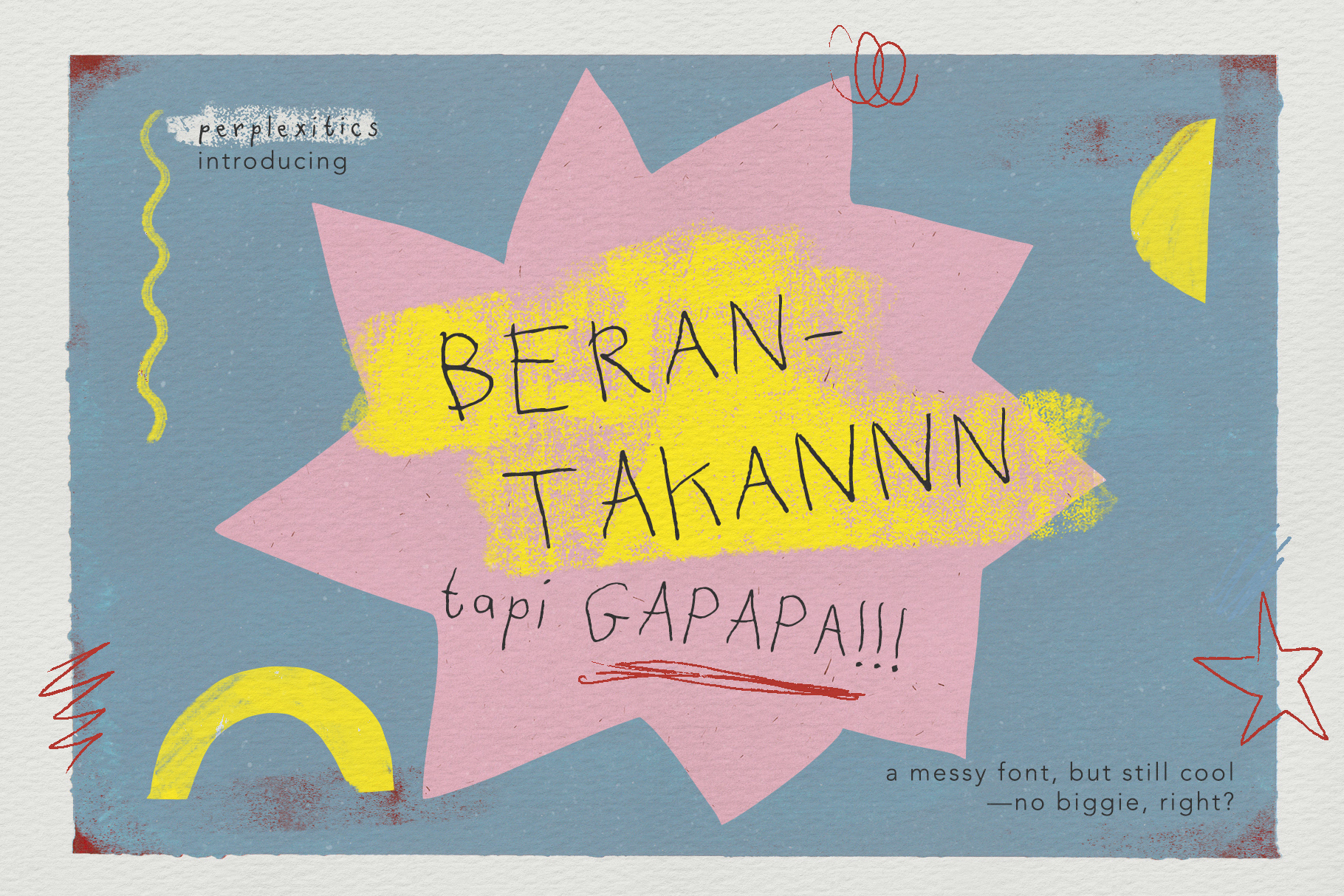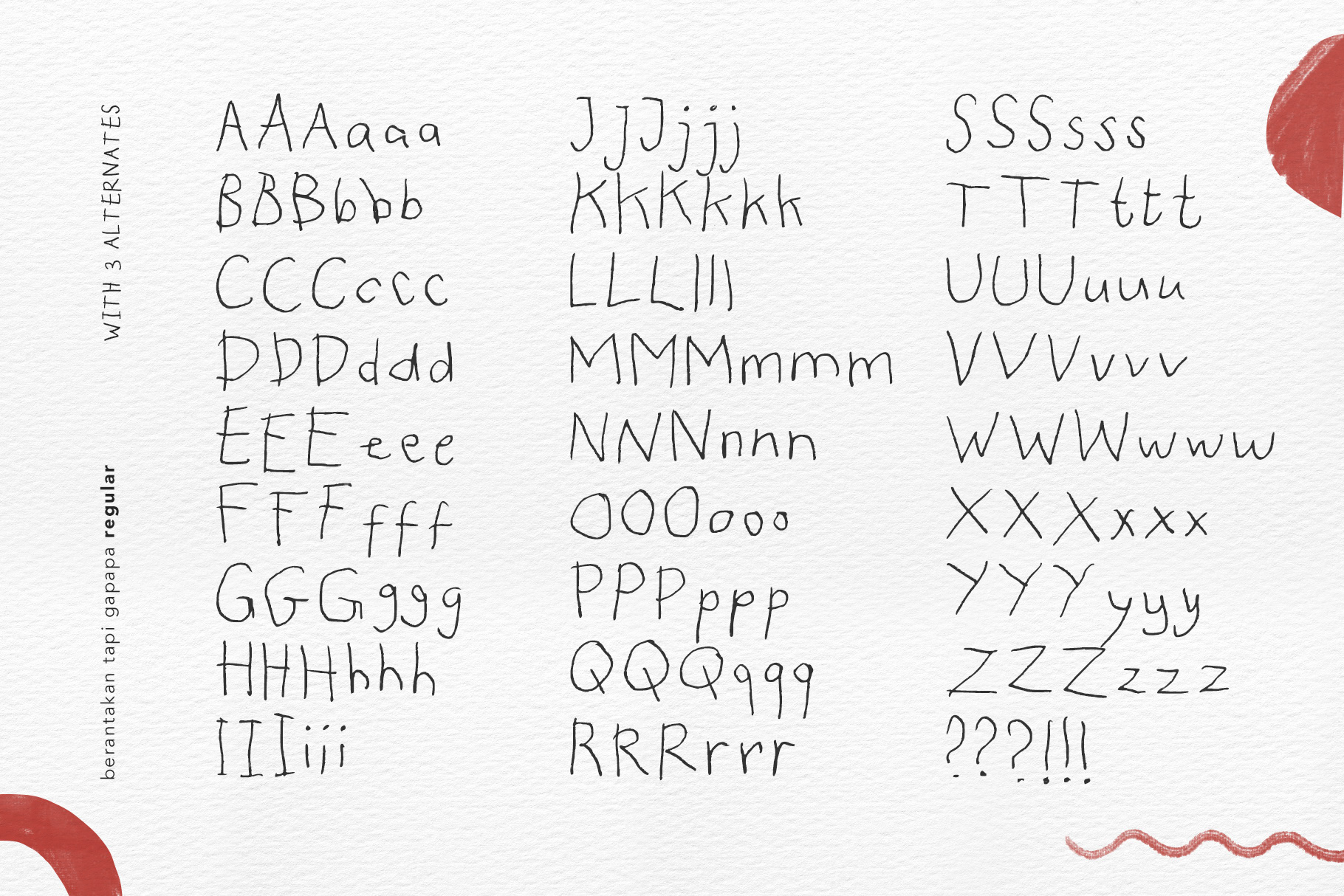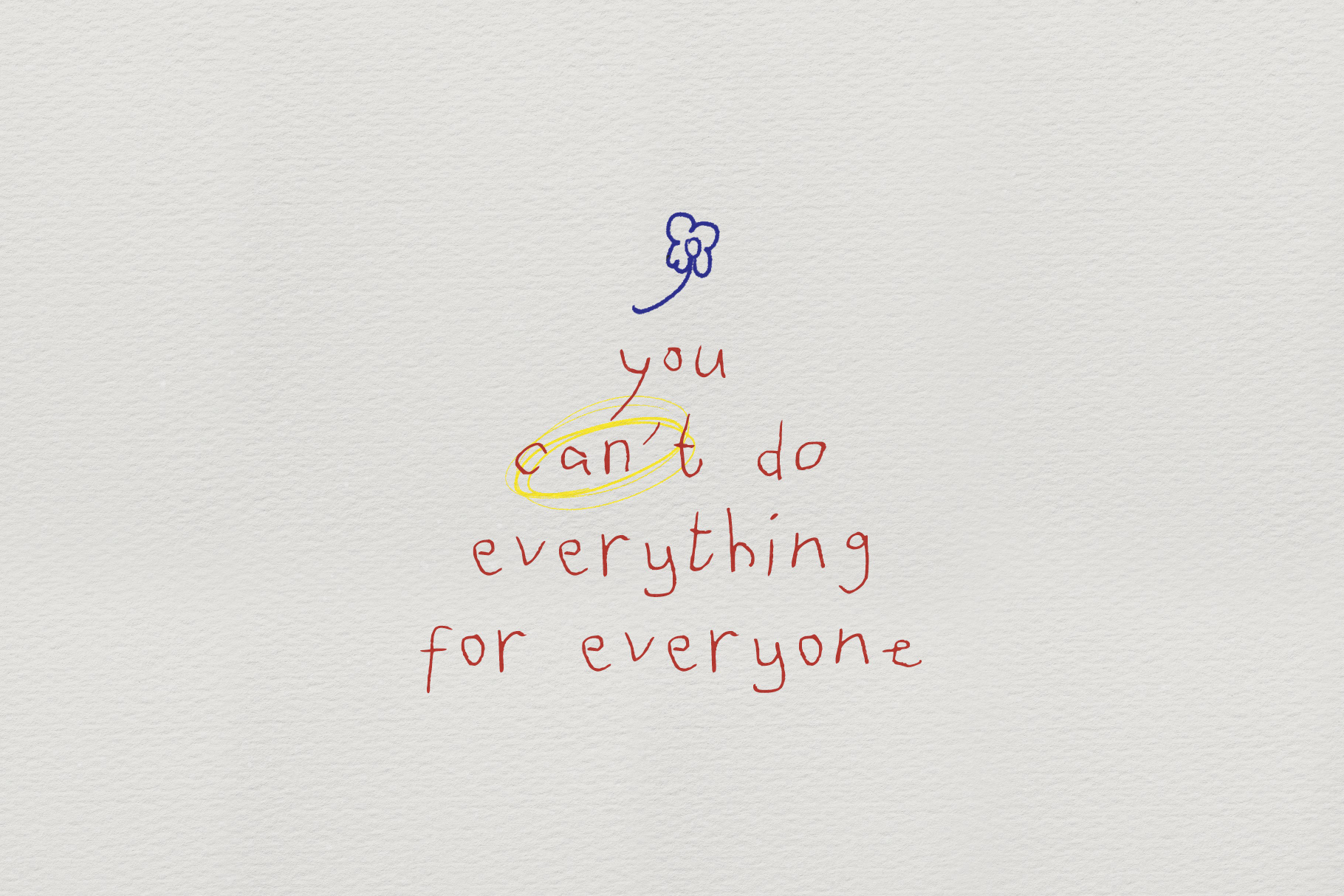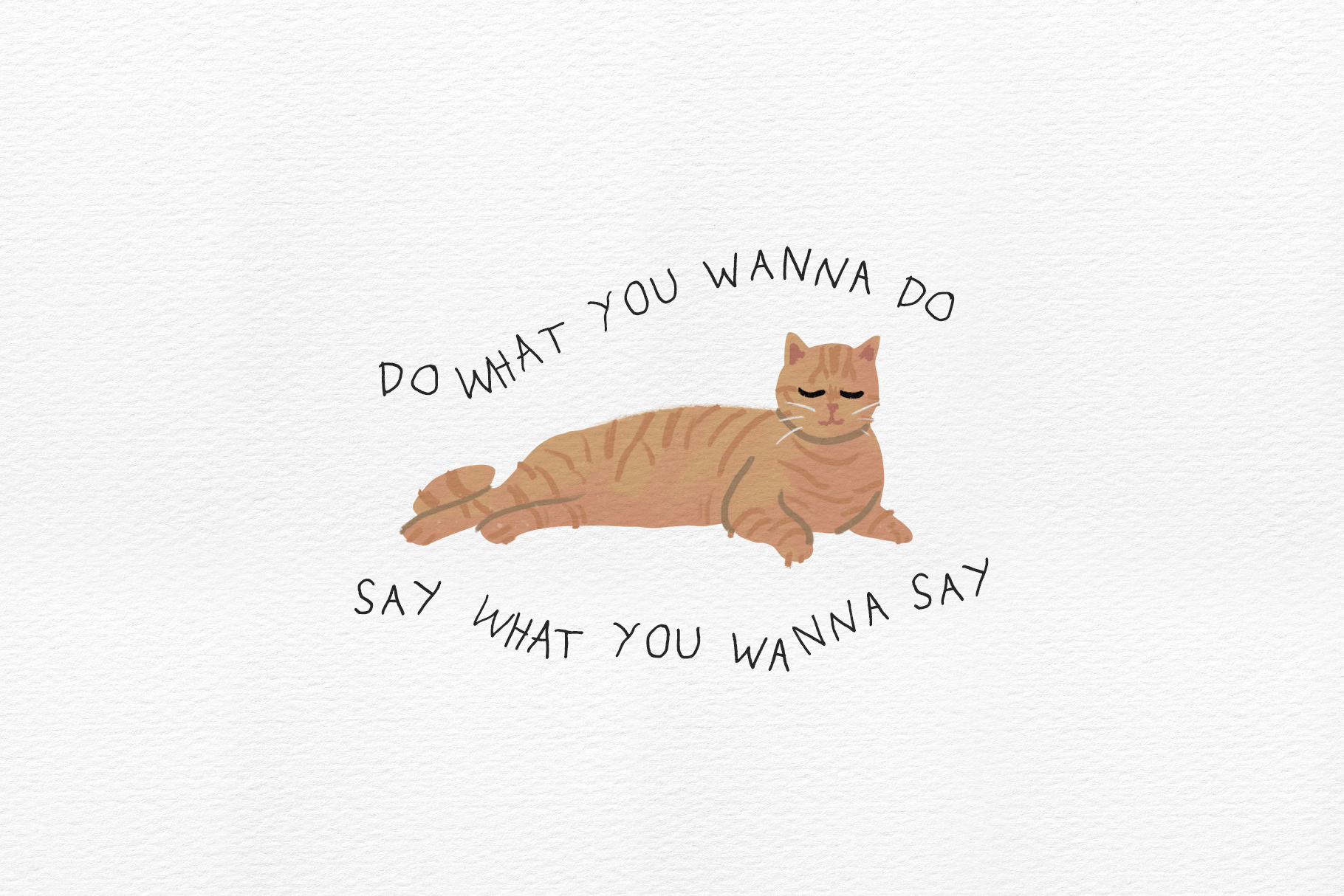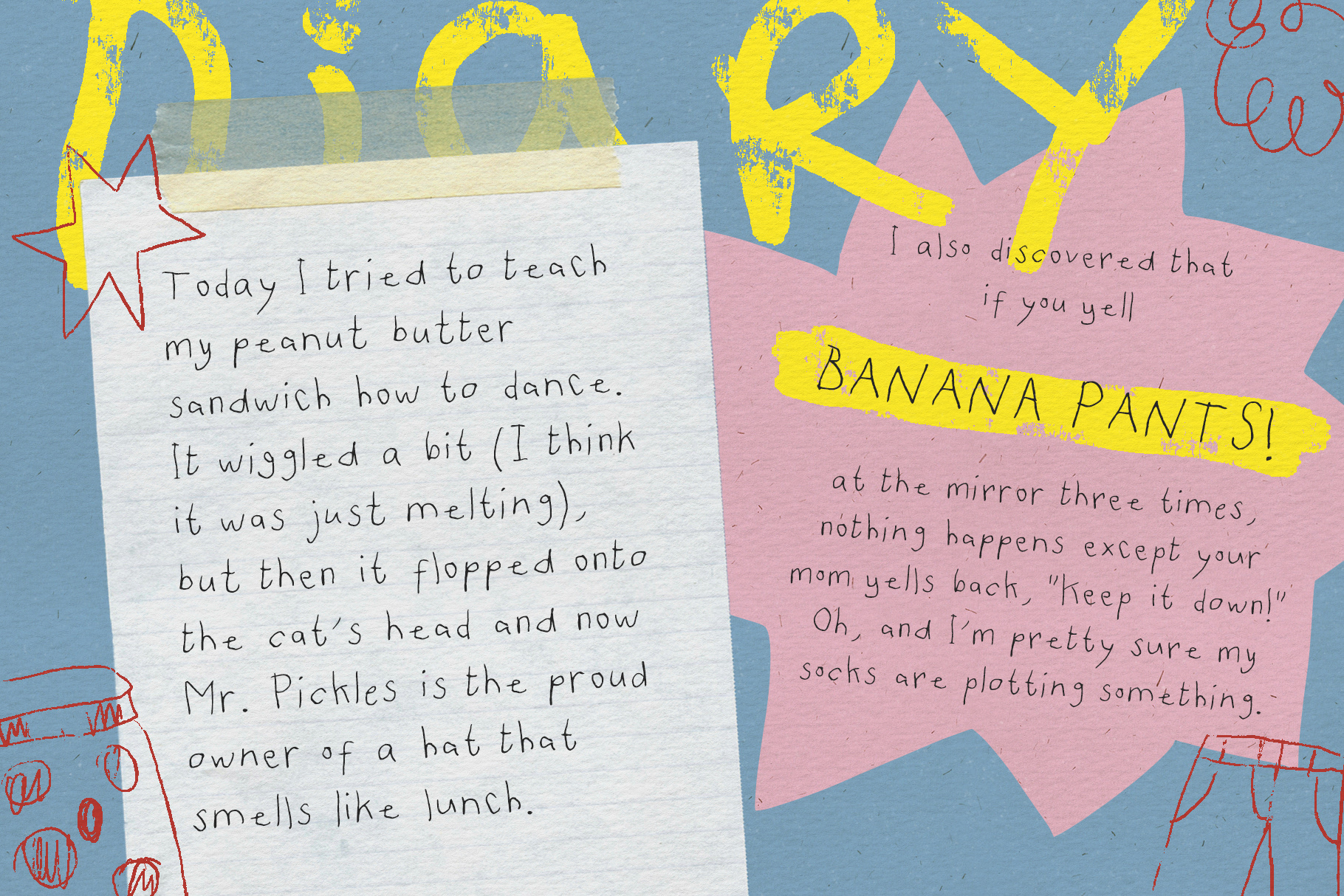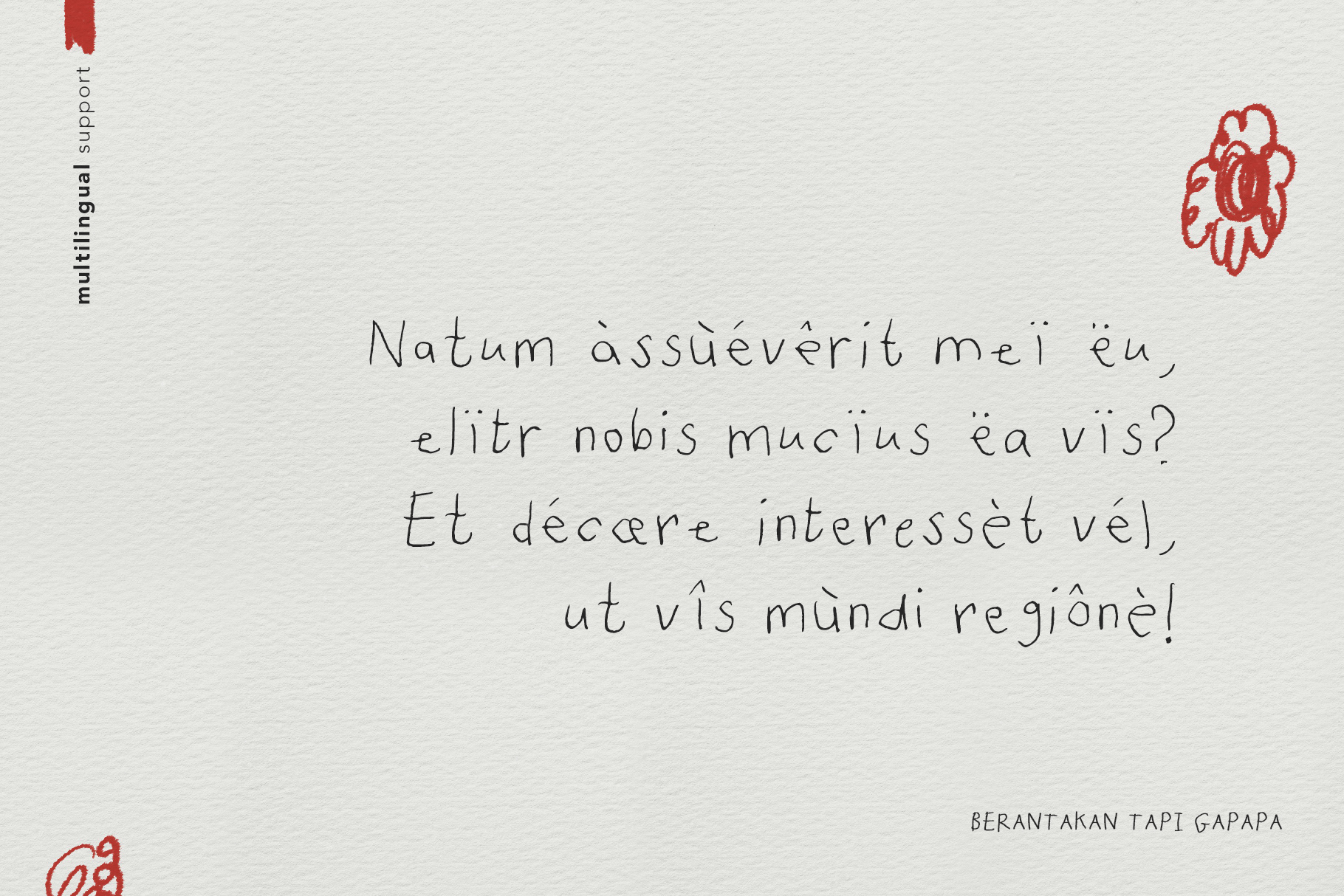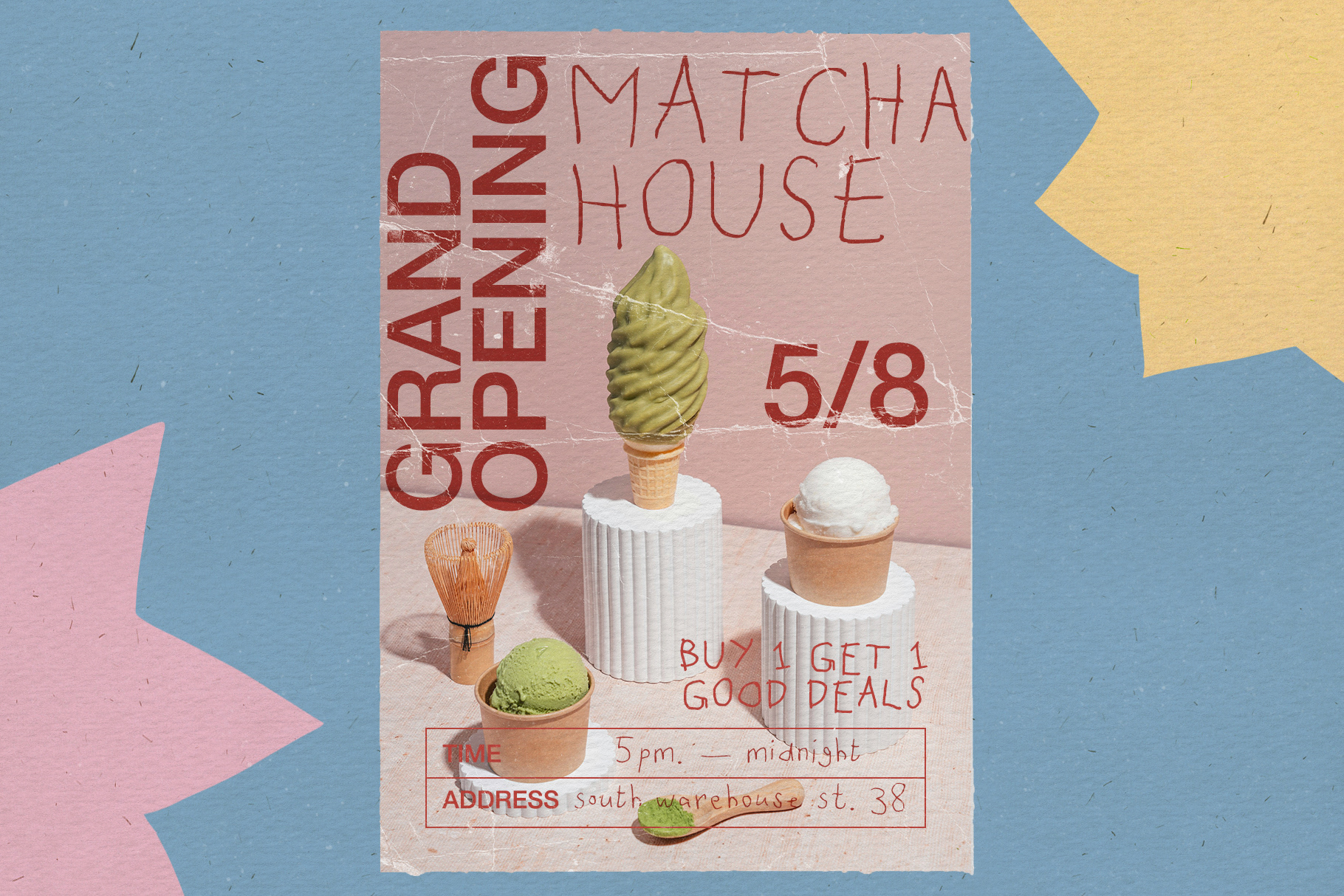
Berantakan Tapi Gapapa Font
Berantakan Tapi Gapapa Font is a messy handwritten font that has quirky, organic doodle feelings. Berantakan Tapi Gapapa Font is packed with everything you need, including uppercase and lowercase letters, numbers, punctuation, and alternates. Multilingual support.